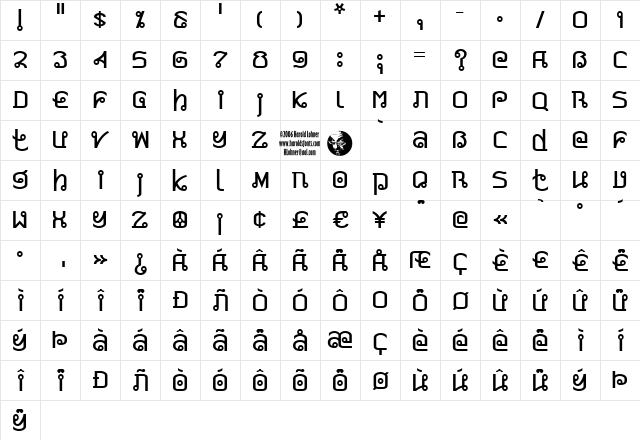
Pad Thai Regular
Design Context for Pad Thai
Pad Thai is a composed and adaptable typeface that performs quietly and consistently across a wide range of design contexts.